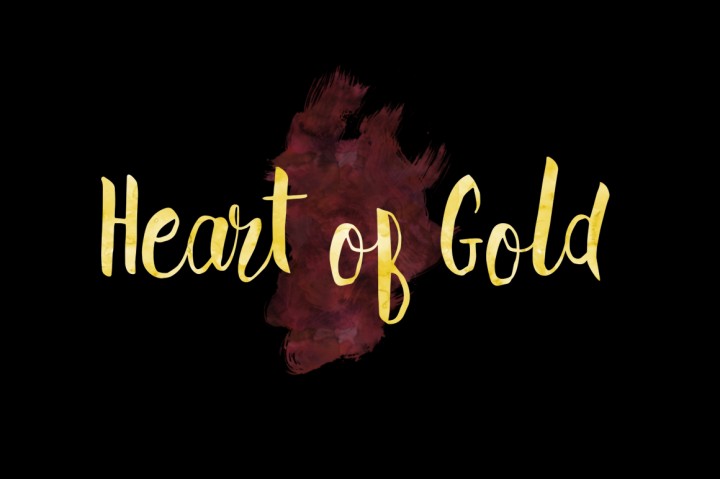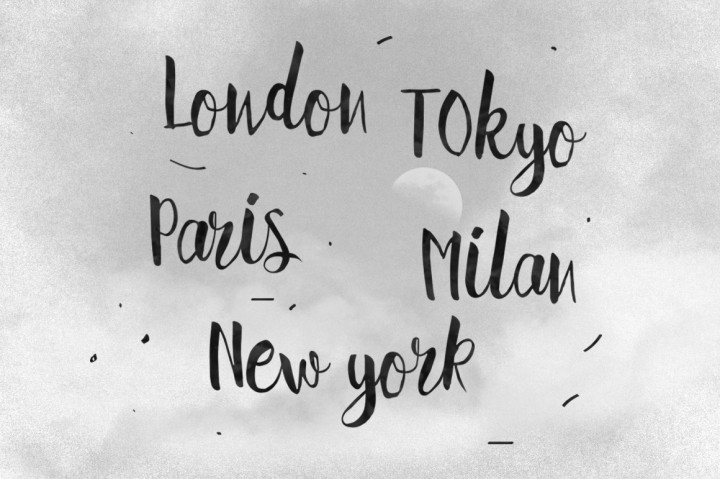
Hellena Script Font
Hellena Script is a beautiful handmade brush script give the natural looks. 238 glyphs and alternate character contain with opentype features. Stylistic alternates, Ornament, Swash and more.You can access all those alternate characters by using OpenType savvy programs such as Adobe Illustrator and Adobe InDesign.